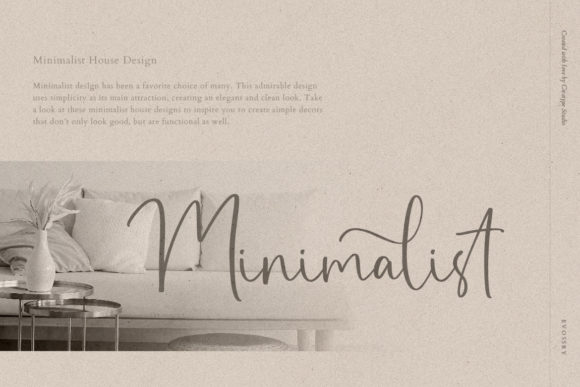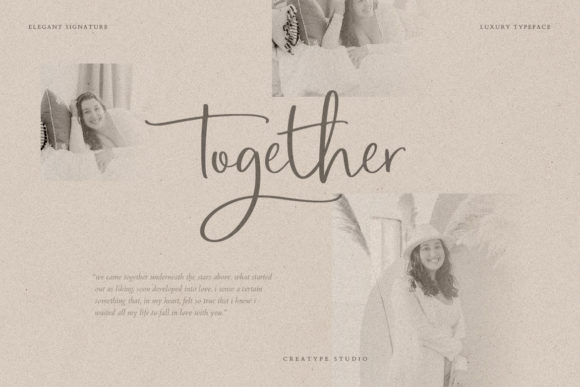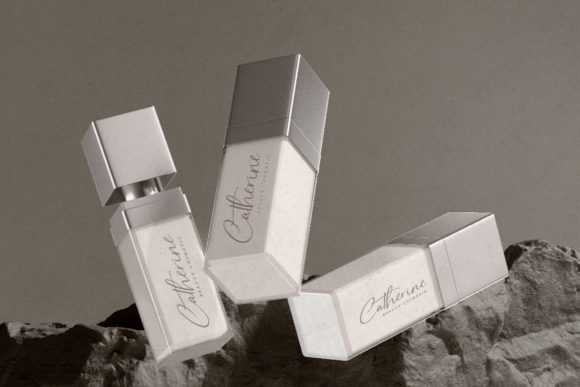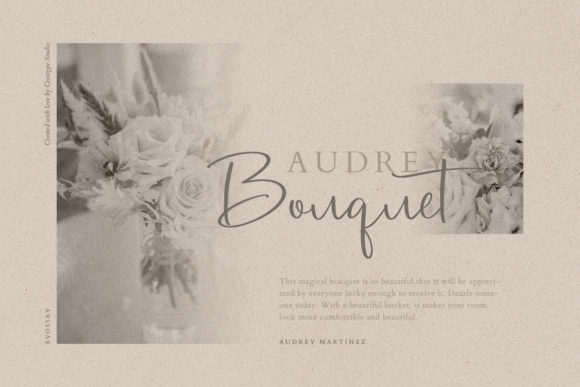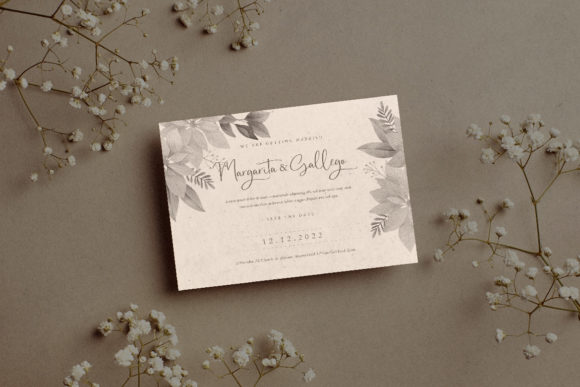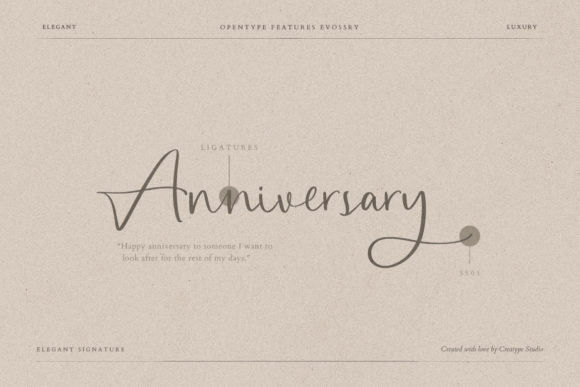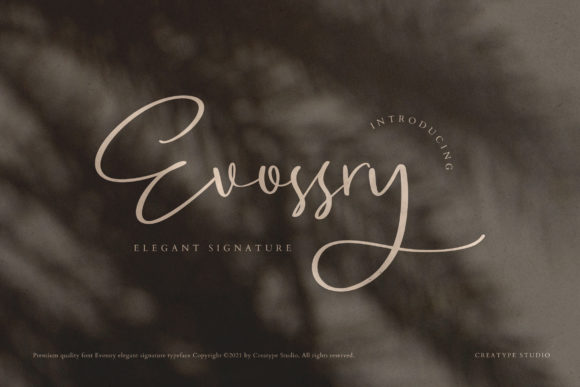
Introducing Evossry Font: The Elegant Signature Script for Your Creative Projects
Are you searching for a font that exudes elegance and sophistication for your creative projects? Look no further than Evossry Font, a beautifully designed signature script font perfect for adding a touch of natural, handwriting-like charm to your branding, logos, wedding designs, social media posts, and more.
What is Evossry Font?
Evossry Font is an elegant signature script font that has been carefully crafted to bring a sense of refinement and luxury to your projects. Its natural, flowing lines and curves evoke the feeling of handwritten text, making it perfect for designers and crafters looking to add a personal touch to their work.
Key Features of Evossry Font
- Elegant Signature Script: Evossry Font boasts a beautiful, flowing script style that is perfect for creating sophisticated and eye-catching text.
- Natural and Handwritten: The font’s natural, handwritten-like quality makes it ideal for projects that require a personal touch, such as wedding designs, social media posts, and branding projects.
- Highly Versatile: Evossry Font can be used for a wide range of projects, from logos and branding to invitations, packaging, and more.
- Easily Readable: Despite its elegant and cursive nature, Evossry Font remains highly readable, making it perfect for use in both digital and print materials.
Use Cases for Evossry Font
Evossry Font is an incredibly versatile font that can be used in a variety of creative projects, including:
- Branding and Logos: Add a touch of elegance and sophistication to your brand’s identity with Evossry Font.
- Wedding Designs: Create beautiful wedding invitations, save-the-dates, and other stationery with this stunning script font.
- Social Media Posts: Elevate your social media game with Evossry Font, perfect for creating eye-catching graphics and posts.
- Packaging and Product Design: Add a personal touch to your product packaging and design with this beautiful script font.
Why Choose Evossry Font?
With so many fonts available, why choose Evossry Font for your creative projects? Here are just a few reasons:
- Unique and Elegant: Evossry Font offers a unique and elegant style that will set your projects apart from the rest.
- Time-Saving: With Evossry Font, you can create professional-looking text in minutes, saving you time and effort.
- High-Quality: This font is designed to deliver high-quality results, ensuring that your projects look polished and refined.
Tips for Using Evossry Font
To get the most out of Evossry Font, here are a few tips to keep in mind:
- Pair with Other Fonts: Combine Evossry Font with other fonts to create a unique and visually appealing typography.
- Experiment with Colors: Try out different colors and color combinations to find the perfect match for your project.
- Pay Attention to Spacing: Make sure to adjust the spacing and kerning to ensure that your text looks balanced and harmonious.
Evossry Font is an elegant signature script font that is perfect for designers and crafters looking to add a touch of natural, handwriting-like charm to their creative projects. With its highly versatile design, ease of use, and high-quality results, Evossry Font is an excellent choice for anyone looking to elevate their branding, logos, wedding designs, social media posts, and more.